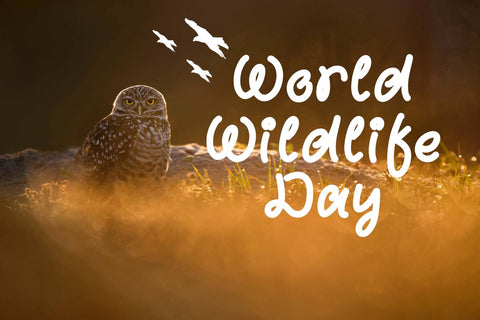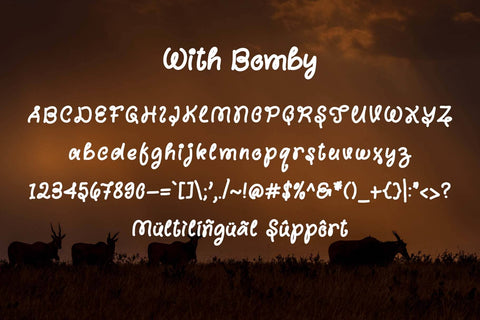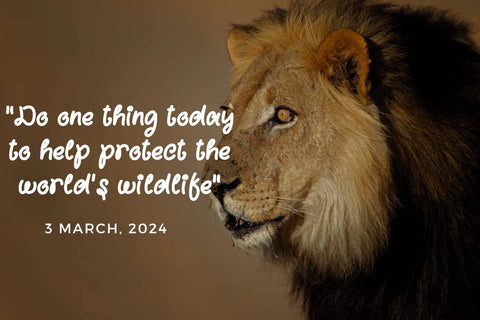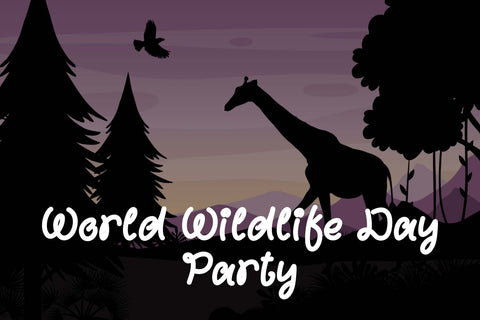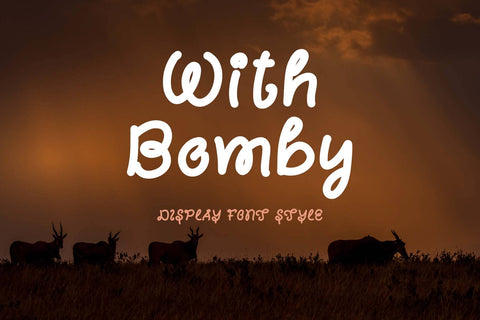
With Bomby
"With Bomby" is a unique display font. This font is equipped with uppercase, lowercase, numerals, punctuation, and multilingual support. Very suitable for animals, World Wildlife Day, comics, summer, spring, birthday, logos, banners, posters, prints, stickers, branding, valentines, and others.